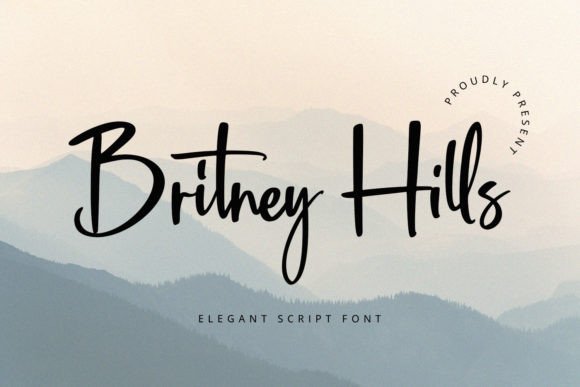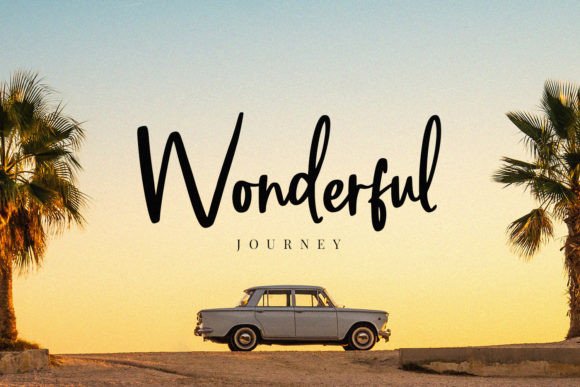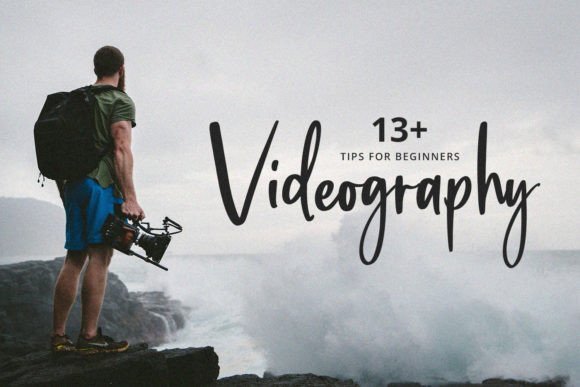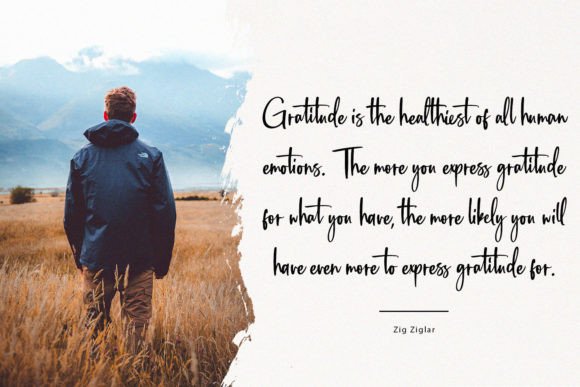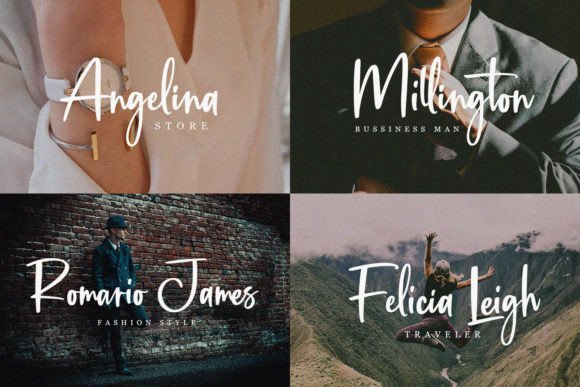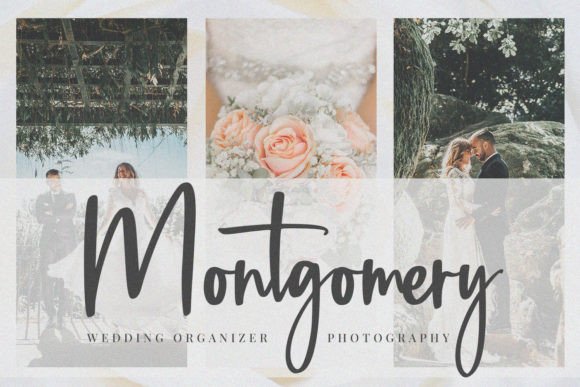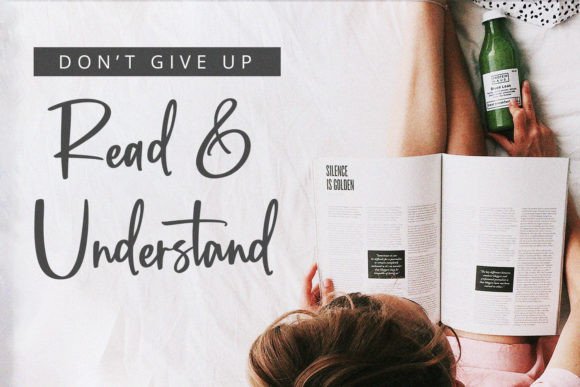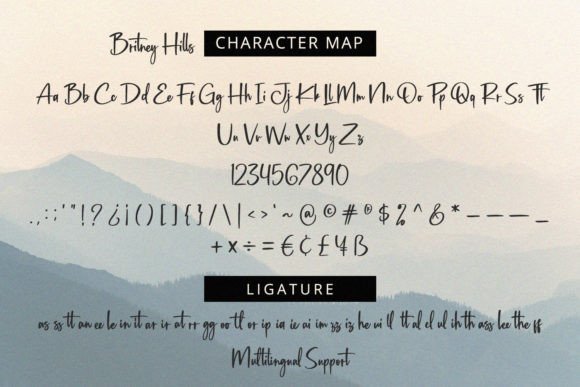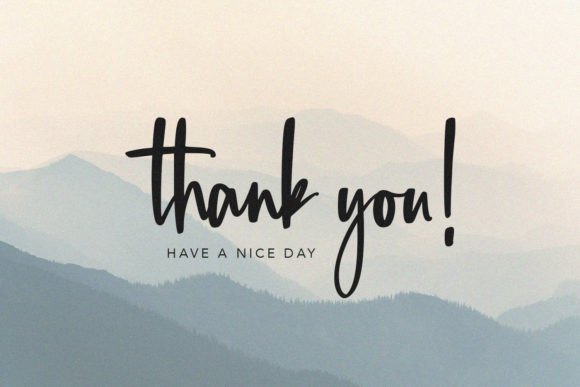
Britney Hills Font
About Britney Hills Font
Introducing Britney Hills, an elegant script font that exudes an authentic and natural feel. With its versatile and sophisticated design, Britney Hills is the perfect choice for a wide array of creative projects. This font is tailored for branding, logo design, lettering, logotypes, clothing, posters, magazines, packaging, shopping bags, T-shirts, book covers, photography, special events, and more.
What sets Britney Hills apart is its seamless blend of elegance and natural charm. The script font offers a unique and authentic touch, making it well-suited for projects that require a sophisticated yet approachable aesthetic. Imagine Britney Hills enhancing your branding materials, where it becomes the signature font that communicates style and personality.
The versatility of Britney Hills allows it to shine in various design applications. Whether used for digital or print media, this font adapts effortlessly, adding a touch of class to your projects. Its PUA encoding ensures easy access to all the glyphs and swashes, providing you with the freedom to customize and enhance your designs.
Visualize Britney Hills becoming an essential component in your creative endeavors, making each project uniquely elegant. Envision it on posters, where its natural feel adds warmth to the visual composition. Its authentic and versatile nature makes it a font that elevates the overall aesthetics of your designs.